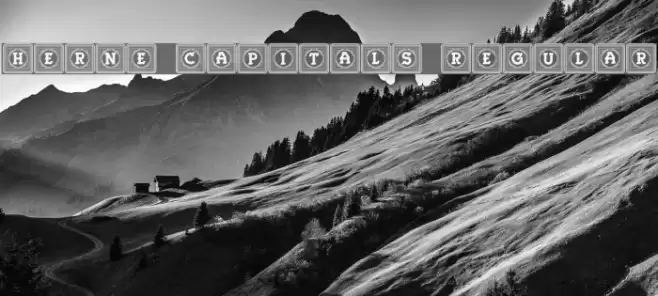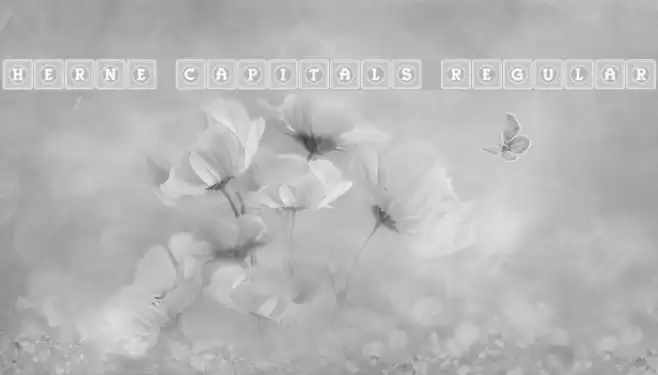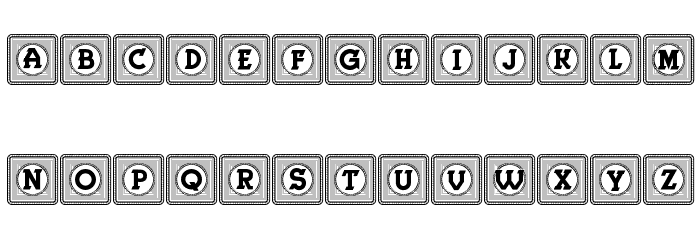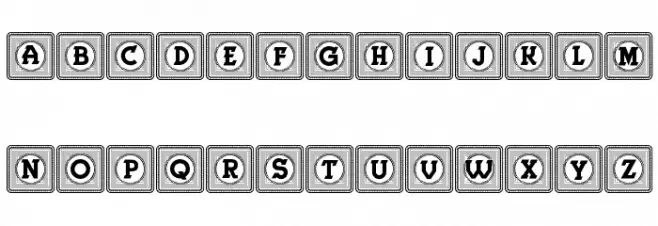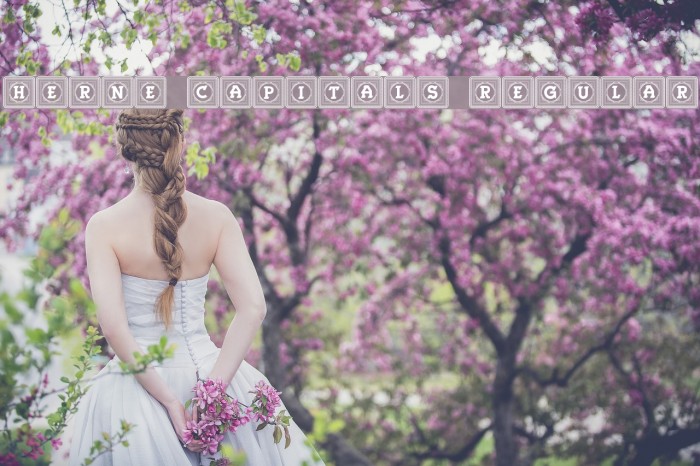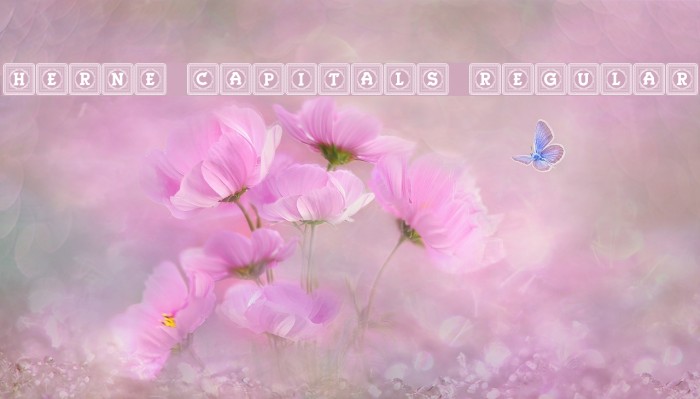
Herne Capitals Regular Font
Herne Capitals Regular Description
This font features bold, uppercase letters enclosed within a decorative, double-lined square border. Each character is distinct and well-defined, with a classic serif style that adds a touch of elegance and formality. The letters are evenly spaced within their borders, ensuring clarity and readability. The overall design is reminiscent of vintage typefaces, making it suitable for projects that require a traditional or historical aesthetic. The boldness of the characters ensures they stand out, making them ideal for attention-grabbing headlines or titles.
Bold, uppercase serif letters in decorative square borders from Uncategorized fonts.
- Proposed Projects: Ideal for vintage-themed posters, book covers, or branding that requires a classic touch.
- Overall Style: Vintage